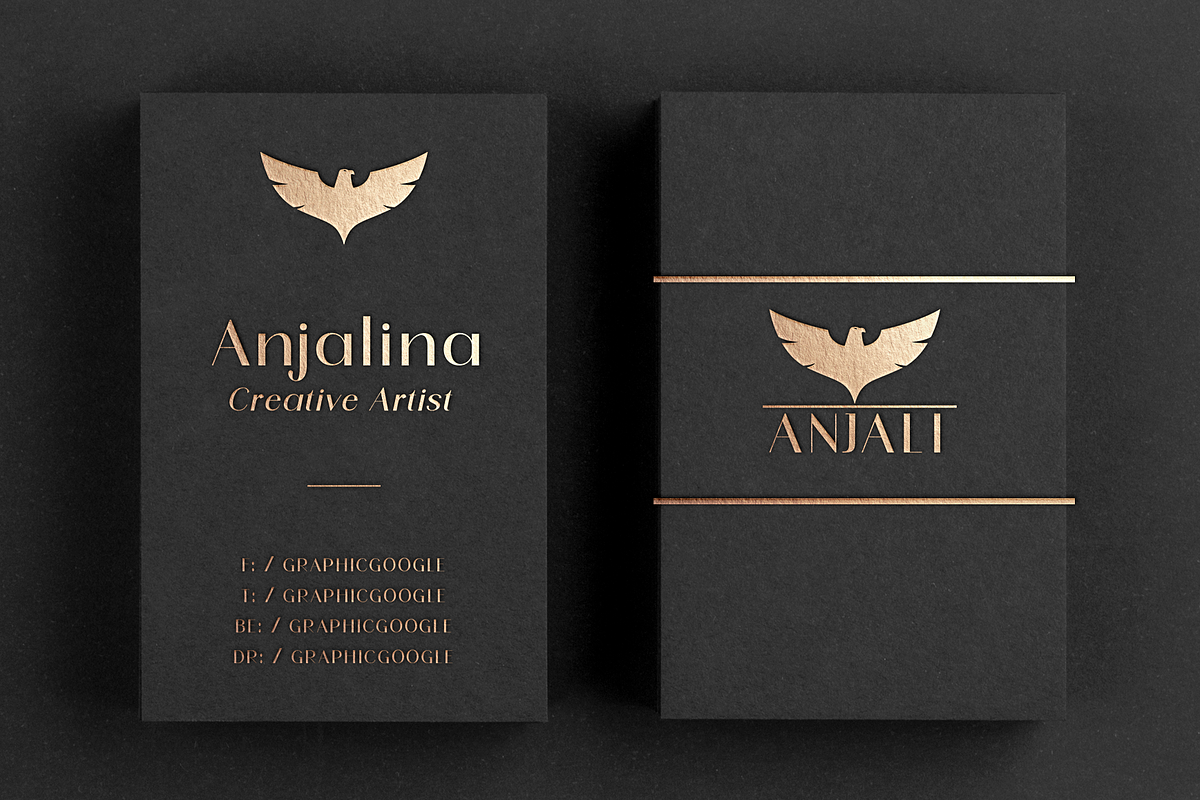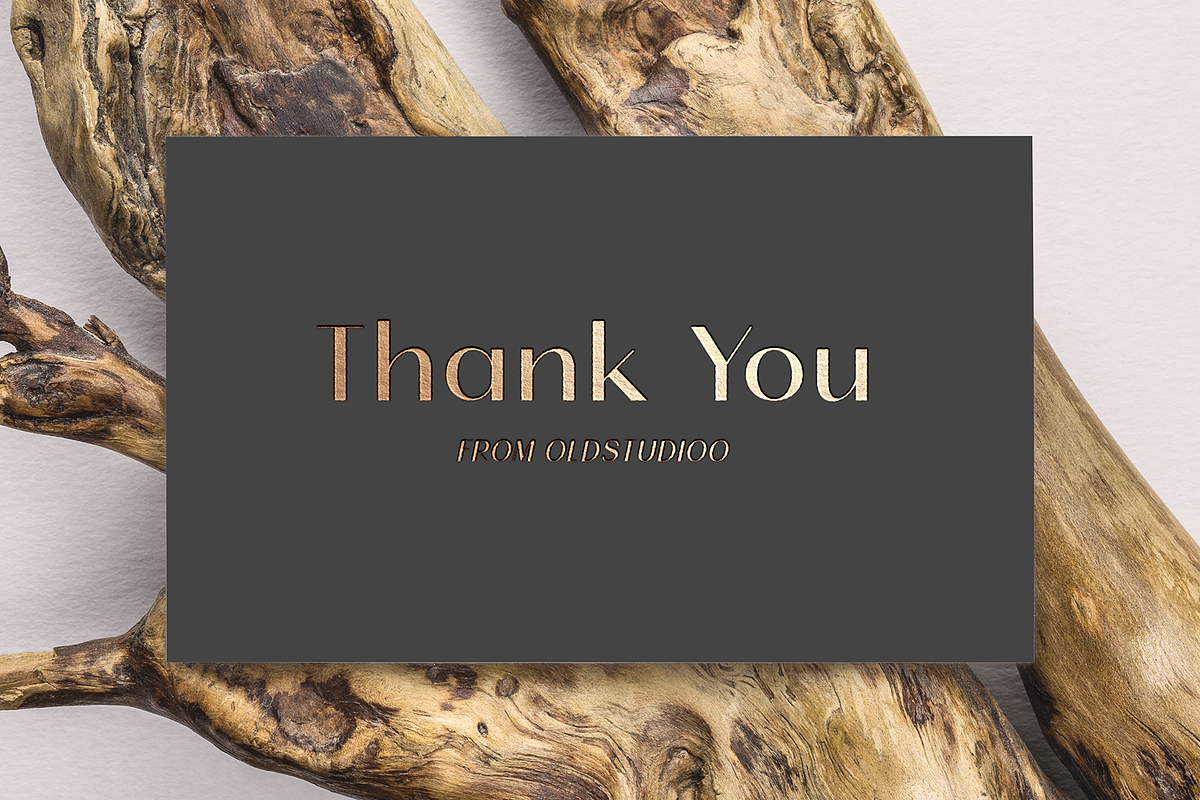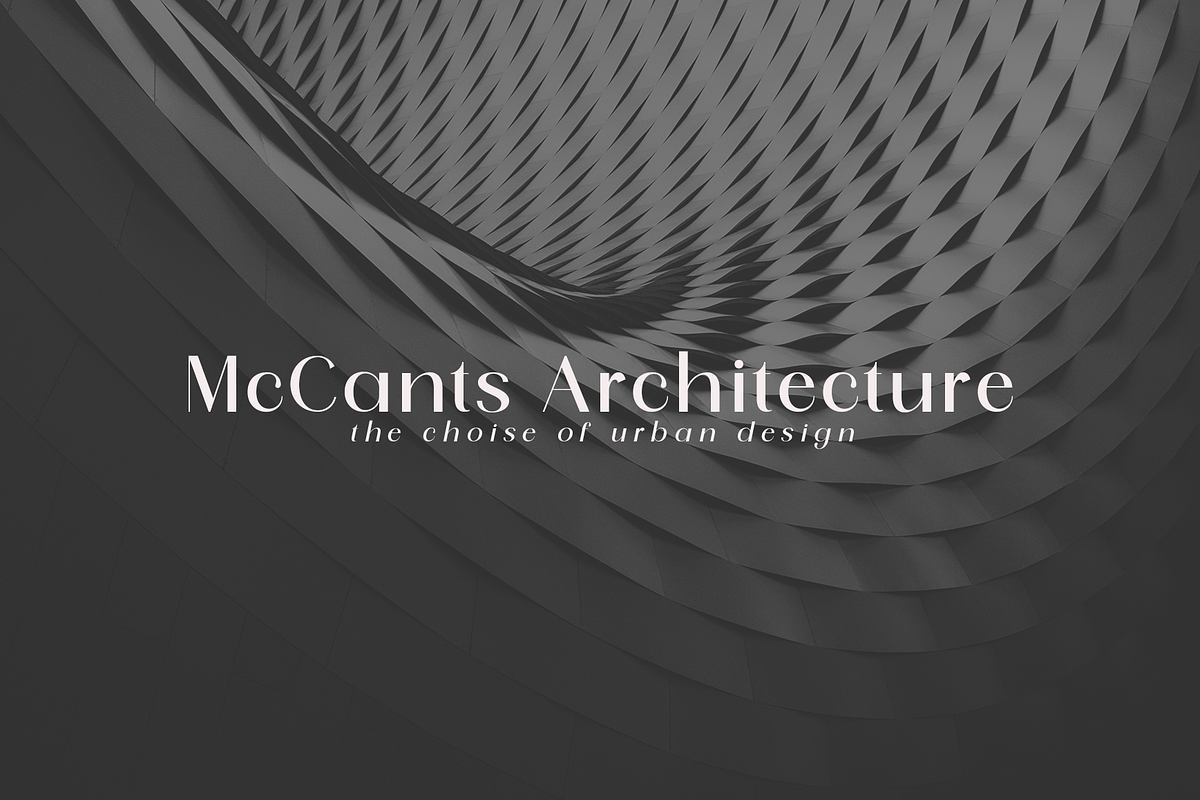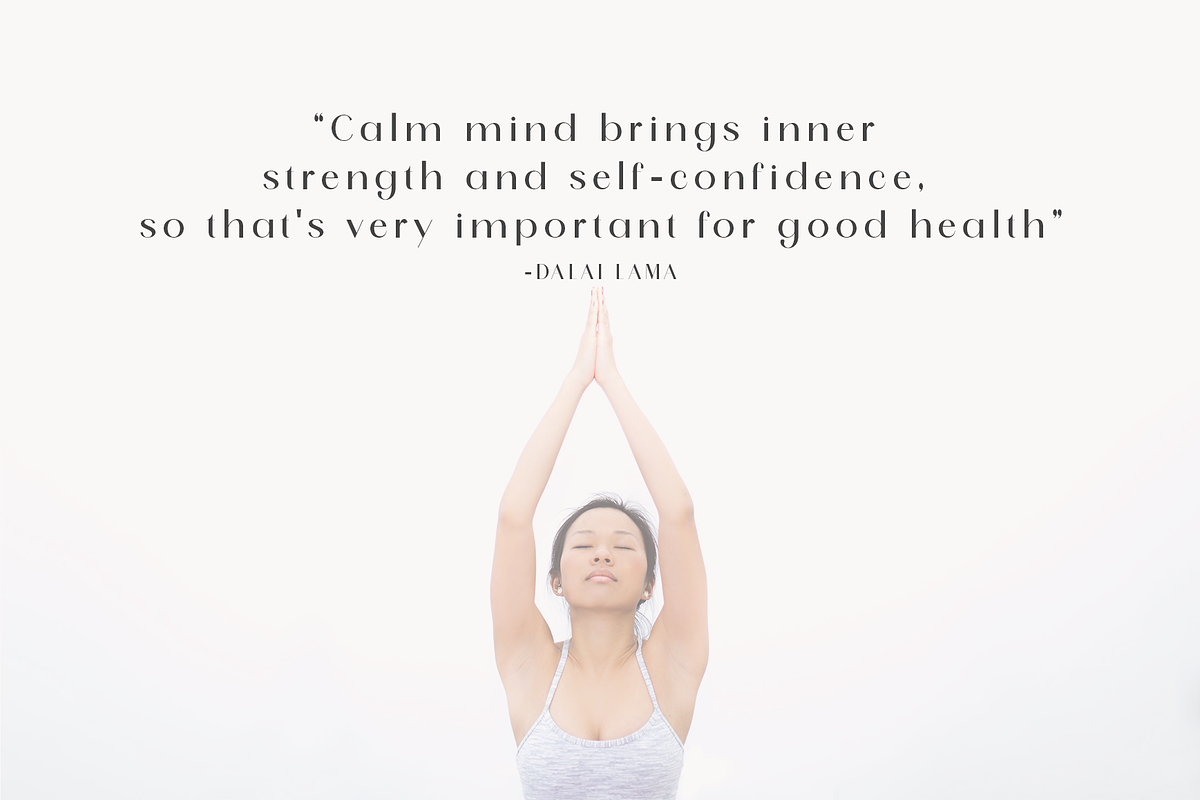
Martina
Martina is a minimal, classic sans serif typeface. It has a little bit of personality and can be used for both headers and body copy. This font family with Regular and Italic includes all latin characters (including accents), numbers, special characters, and punctuation. This font can be used for wordmark logos, mastheads, pull quotes & monograms showing both feminine and masculine qualities.